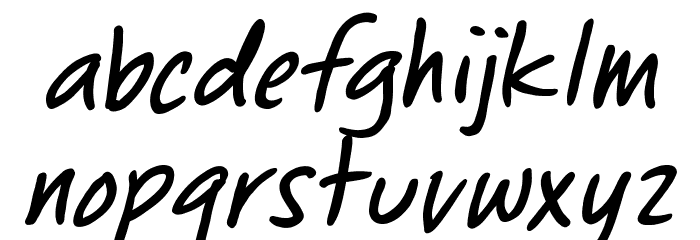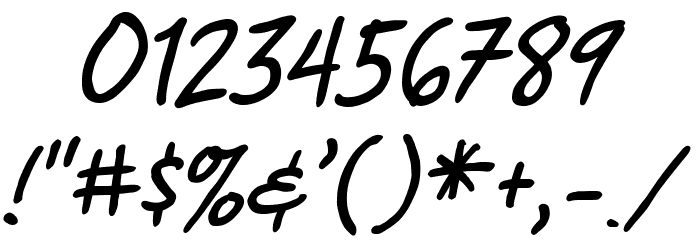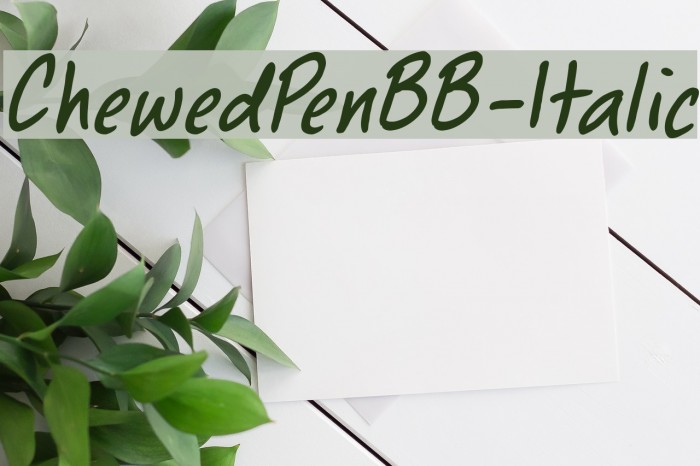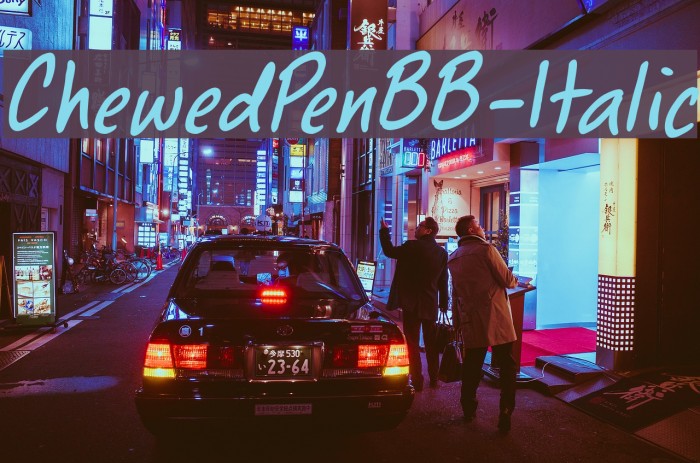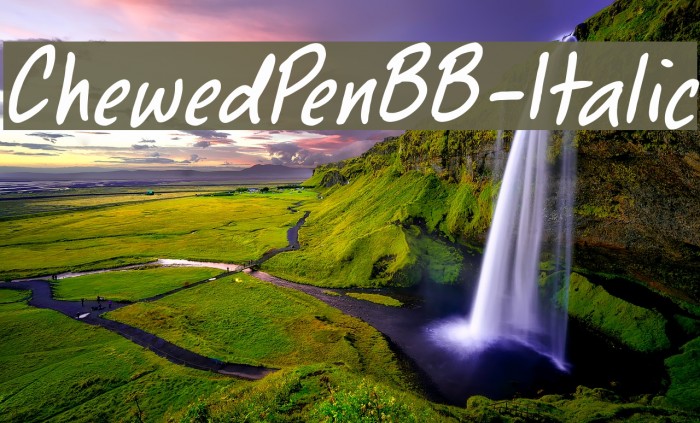
ChewedPenBB-Italic Font
This font exudes a playful and informal style, reminiscent of handwriting with a casual flair. The characters are slightly slanted, giving it an italicized appearance that enhances its dynamic and lively feel. The strokes are smooth and consistent, with a medium thickness that maintains readability while adding a touch of personality. The uppercase and lowercase letters flow seamlessly, and the numerals and special characters are crafted with the same energetic style. This font is ideal for projects that require a personal touch, such as invitations, greeting cards, or creative branding.
A playful, handwritten-style italic font with smooth, medium-thick strokes.
- Proposed Projects: Ideal for invitations, greeting cards, creative branding, and personal projects.
- Category: Handwritten
- Overall Style: Casual, Playful
- Use Case: Headlines, Informal text, Creative projects